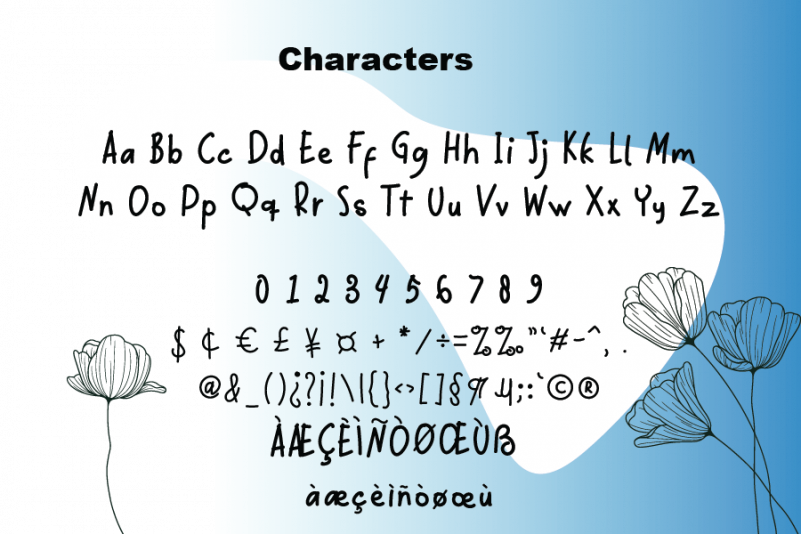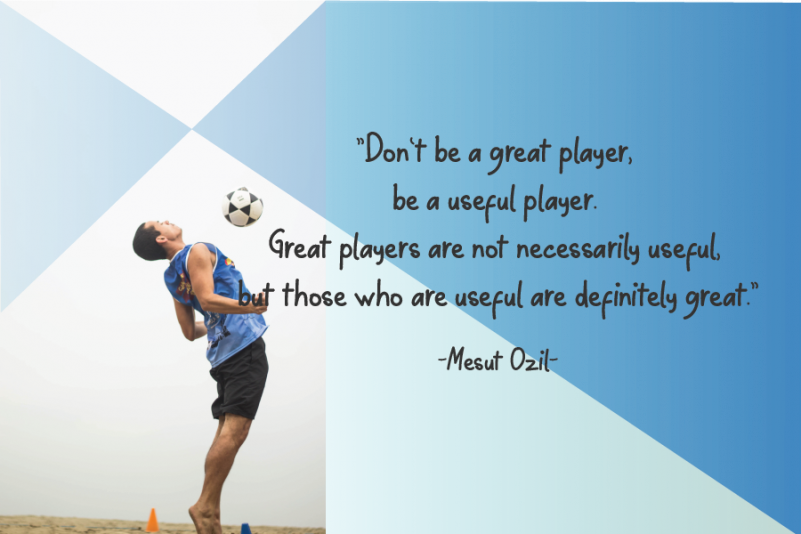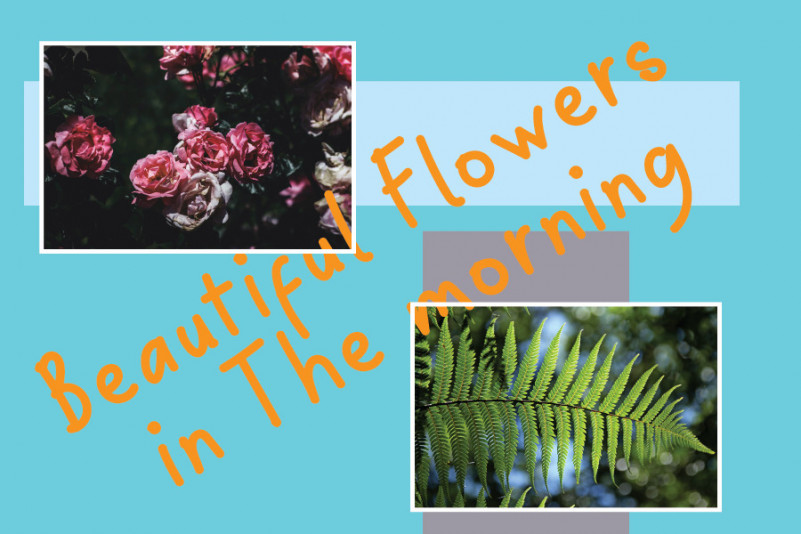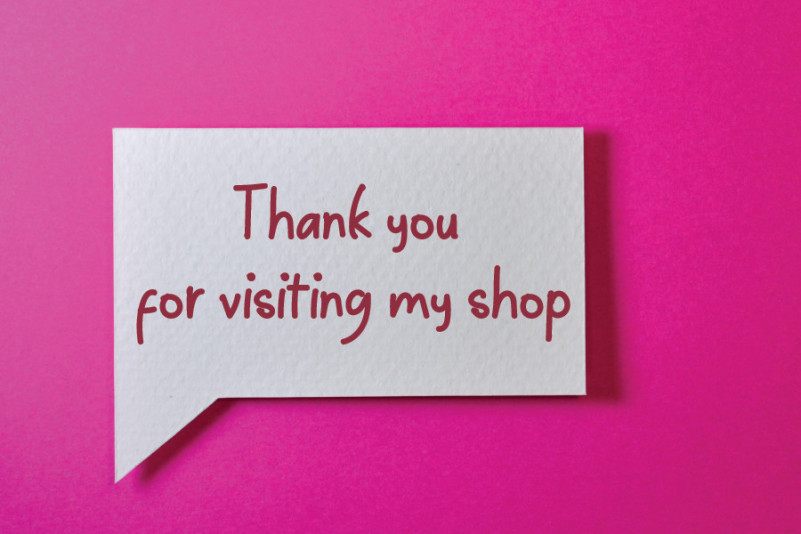
Sunday Morning Font
Sunday Morning Display Font
This is a well balanced, refined script typeface that emanates sophistication and elegance. Its stylish alternates and ligatures make this font the perfect match for any project.